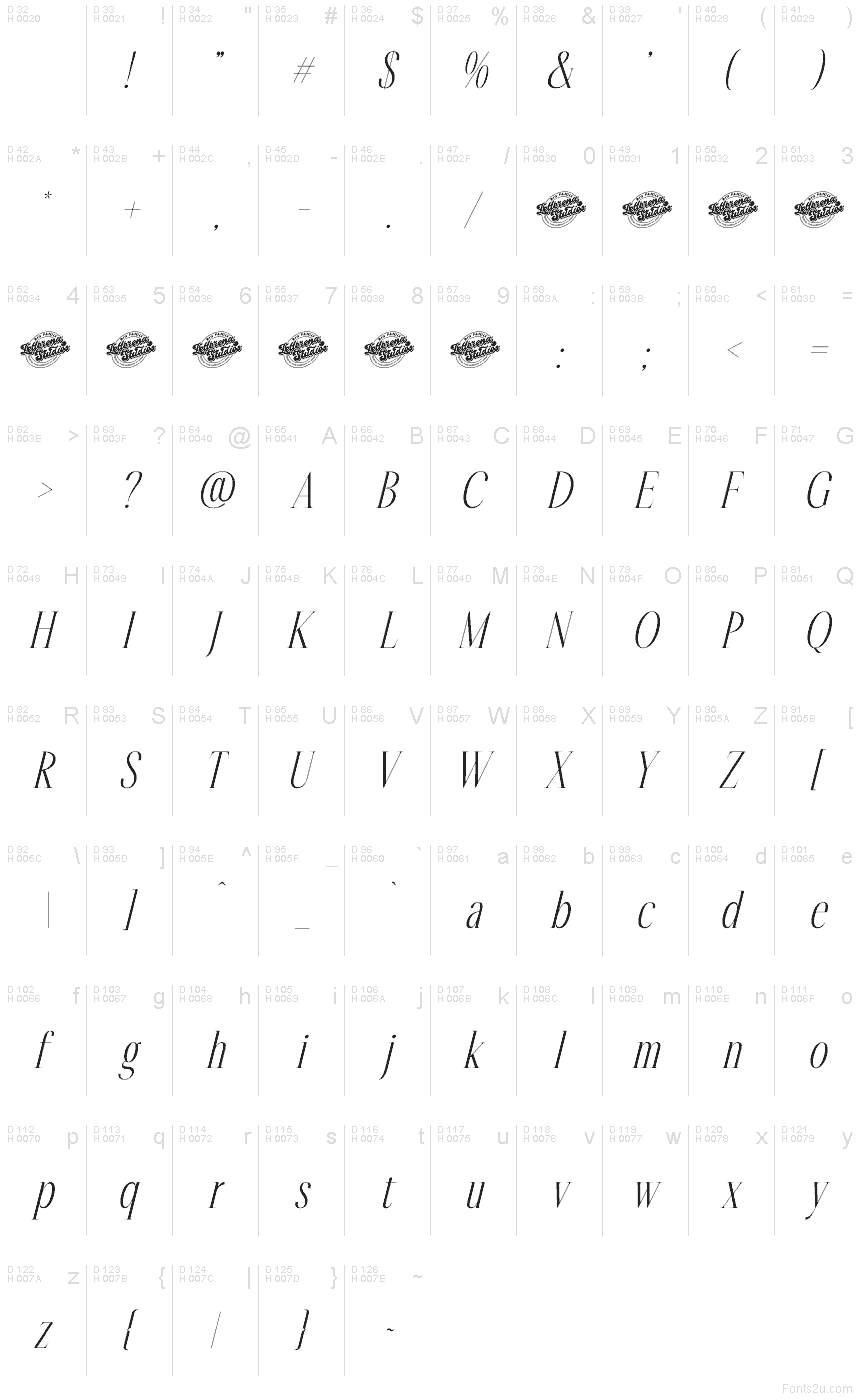
Rastofi DEMO VERSION Italic
Rastofi Italic font by Letterena Studios is a free serif font that pours drama and elegance into every stroke. The letters are tall, slender, and swept forward with a fashion-magazine flair, as if written with a sharp ink pen on glossy paper. Smooth curves meet razor-fine thins, giving headlines a polished, editorial sheen without feeling stiff or old-fashioned.
Using Rastofi Italic, your logos, luxury branding, magazine covers, packaging, event invitations, and social media graphics gain an effortless, high-end shimmer. This free font shines when set large, where its delicate shapes can really breathe; pair it with a simple geometric sans for body copy to keep your layouts crisp and modern.